When it comes to poster design, choosing the right font is just as important as picking the right colours or imagery. A font does more than display your message. It sets the mood, reflects your brand personality and makes sure your content is easy to read at a glance.
Here are nine fonts that consistently deliver great results for posters, along with why they work.
1. Helvetica
A true design classic. Helvetica is bold, simple and highly legible, even from a distance. Its clean look makes it ideal for posters that need to convey information quickly, such as sales, events or product launches.
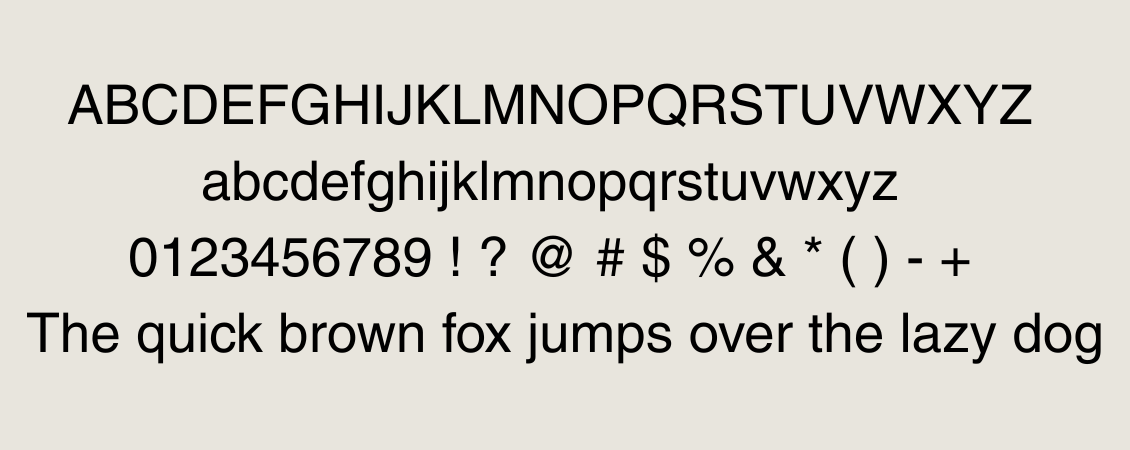
2. Futura
Futura has a geometric style that feels sleek and modern. It brings a sense of innovation, which makes it a popular choice for tech companies and creative industries. If you want your poster to feel forward-thinking, Futura is a safe bet.
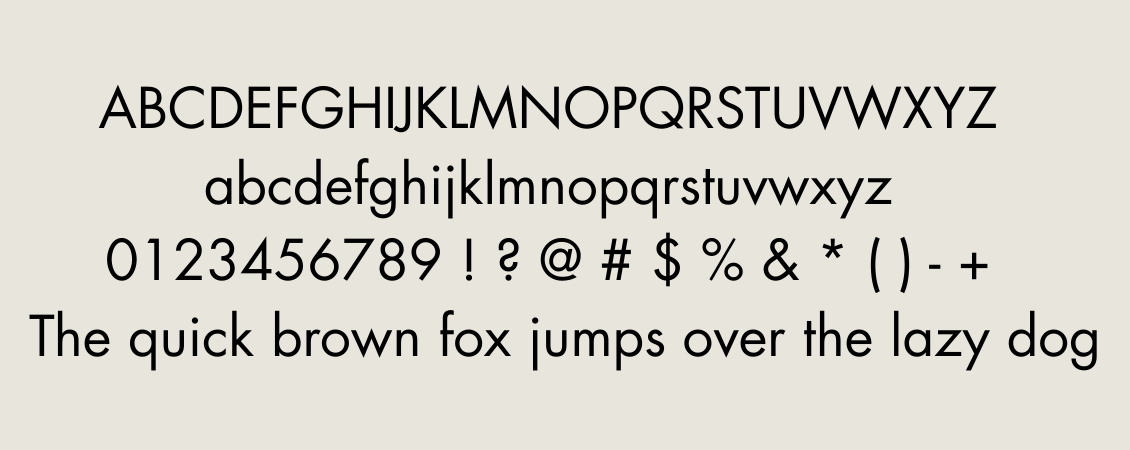
3. Franklin Gothic
Strong and impactful, Franklin Gothic has been used in advertising for decades. Its heavy weight ensures headlines stand out, making it perfect for posters where attention-grabbing is the main goal.
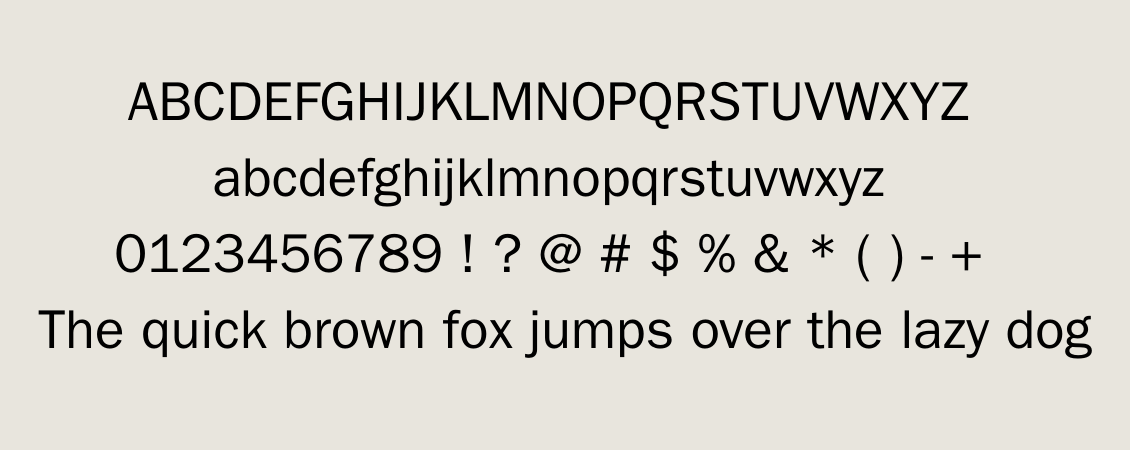
4. Bodoni
For a poster that needs elegance, Bodoni delivers. Its contrast between thick and thin strokes adds drama while maintaining sophistication. It works especially well for luxury events, high-end retail or promotional campaigns where style matters.
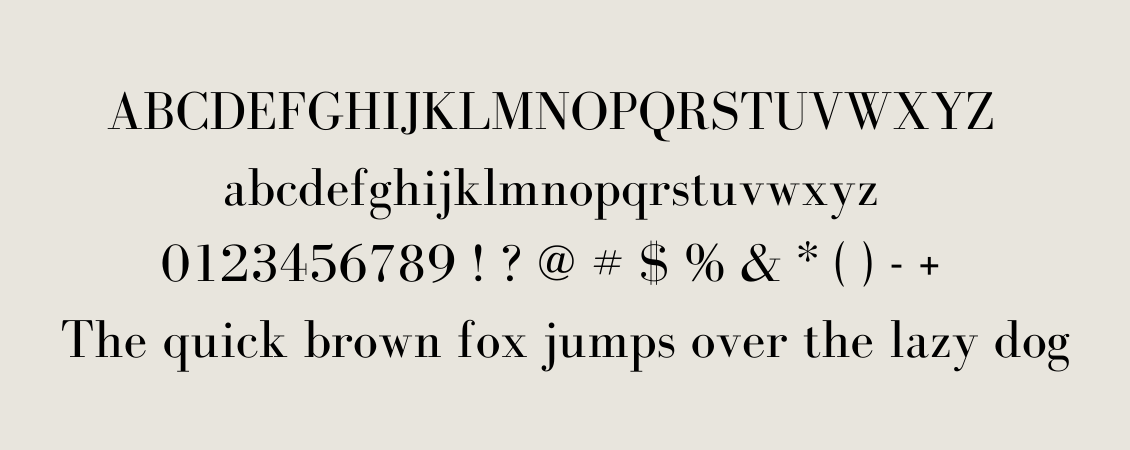
5. Gill Sans
A versatile British classic, Gill Sans is approachable but professional. Its rounded design makes it more friendly than Helvetica, which is why it is often used by brands that want to appear trustworthy yet accessible.
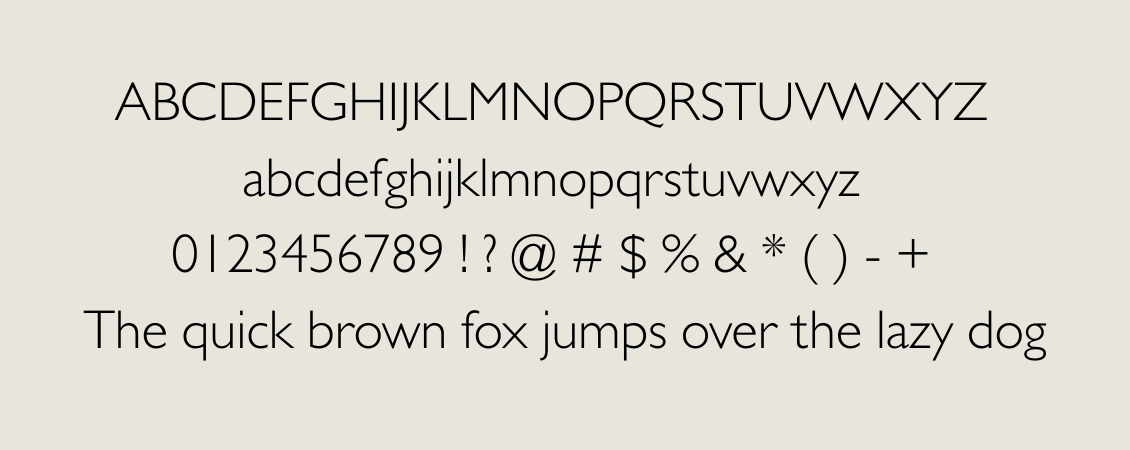
6. Impact
As the name suggests, Impact is designed to grab attention. Its heavy, condensed letters take up maximum space, making it a go-to choice for short, punchy headlines. Use sparingly, but when you want a big message to land, Impact does the job.
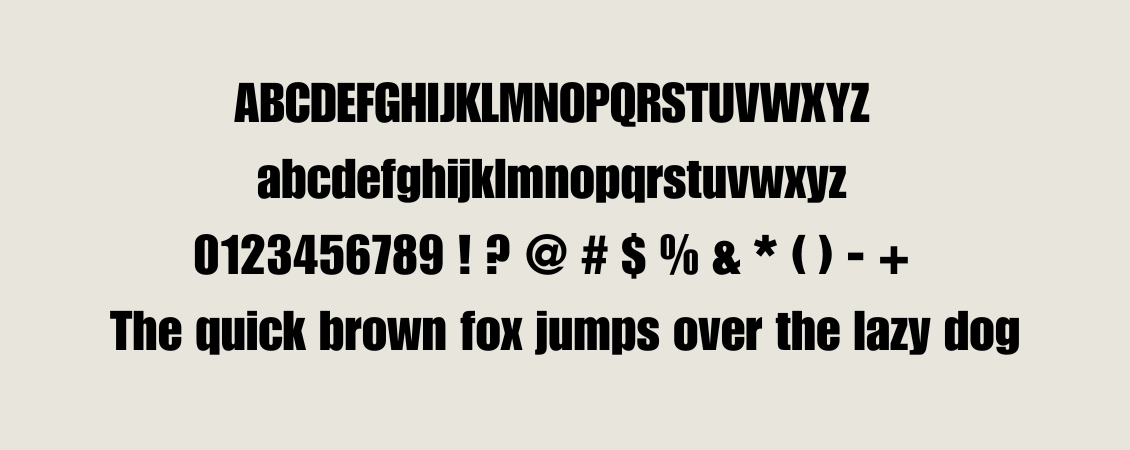
7. Avenir
Avenir combines modernity with warmth. It feels clean and contemporary without being too clinical, which makes it great for posters that need to strike a balance between professionalism and creativity.
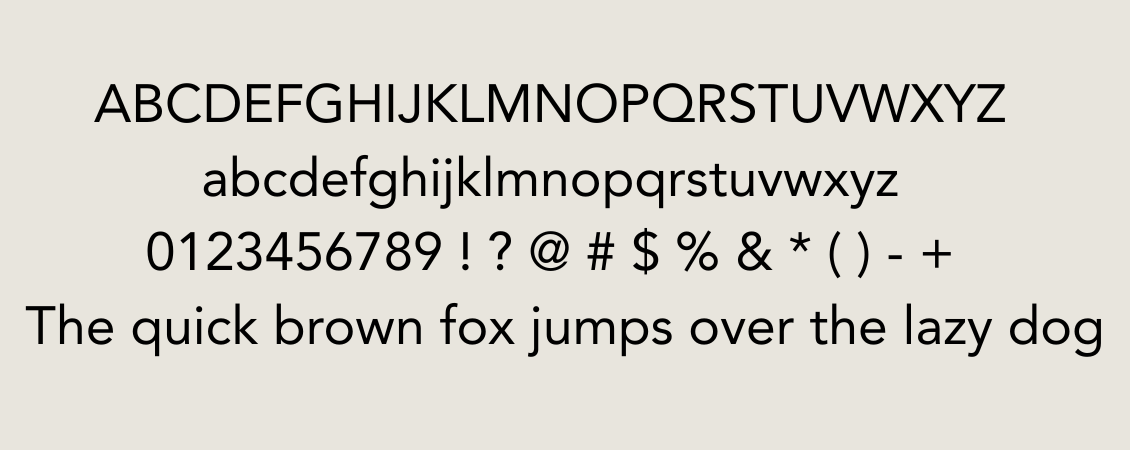
8. Bebas Neue
Tall, bold and all caps, Bebas Neue has become a favourite for posters and social graphics. It is simple but powerful, and its uniform letterforms make it easy to read from a distance. Ideal for events, concerts and big announcements.
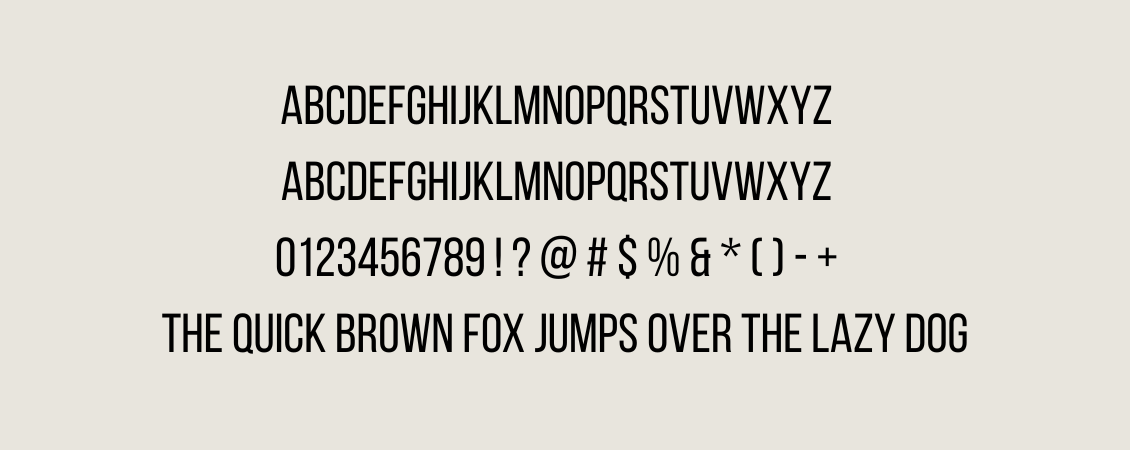
9. Brush Script
If you want to add energy and personality, Brush Script brings a hand-painted feel that makes posters look dynamic. Best for creative industries, seasonal promotions or campaigns that need a playful, human touch.
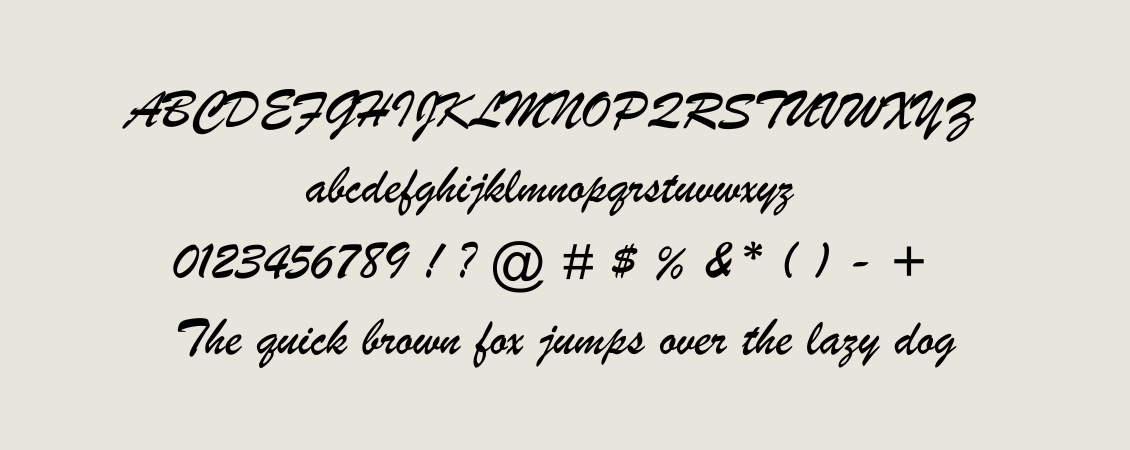
Final Thoughts
There is no single “best” font for posters. The right choice depends on your message, your brand and your audience. Whether you want bold impact, timeless elegance or approachable style, the fonts above give you plenty of reliable options.